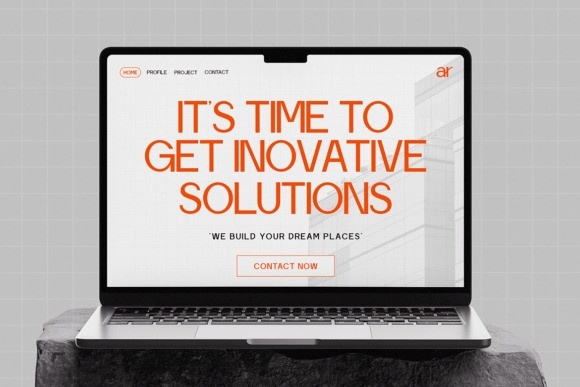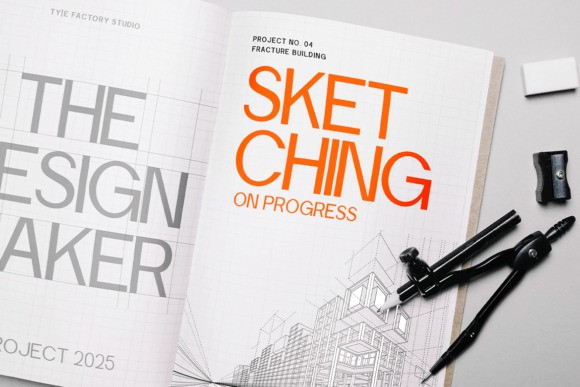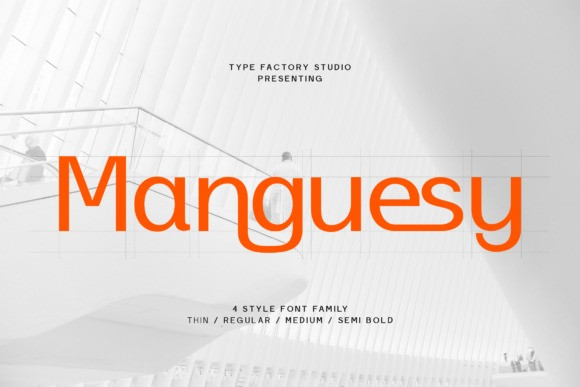
Manguesy Font
Manguesy Font is a modern corporate sans-serif typeface built with clean geometry and balanced proportions. The letterforms feature smooth curves, open counters, and consistent stroke weight, creating a clear and structured visual rhythm.
Manguesy supports flexible hierarchy across branding systems, web interfaces, editorial layouts, and presentation materials. The neutral construction allows it to perform well in both headline and short paragraph settings.